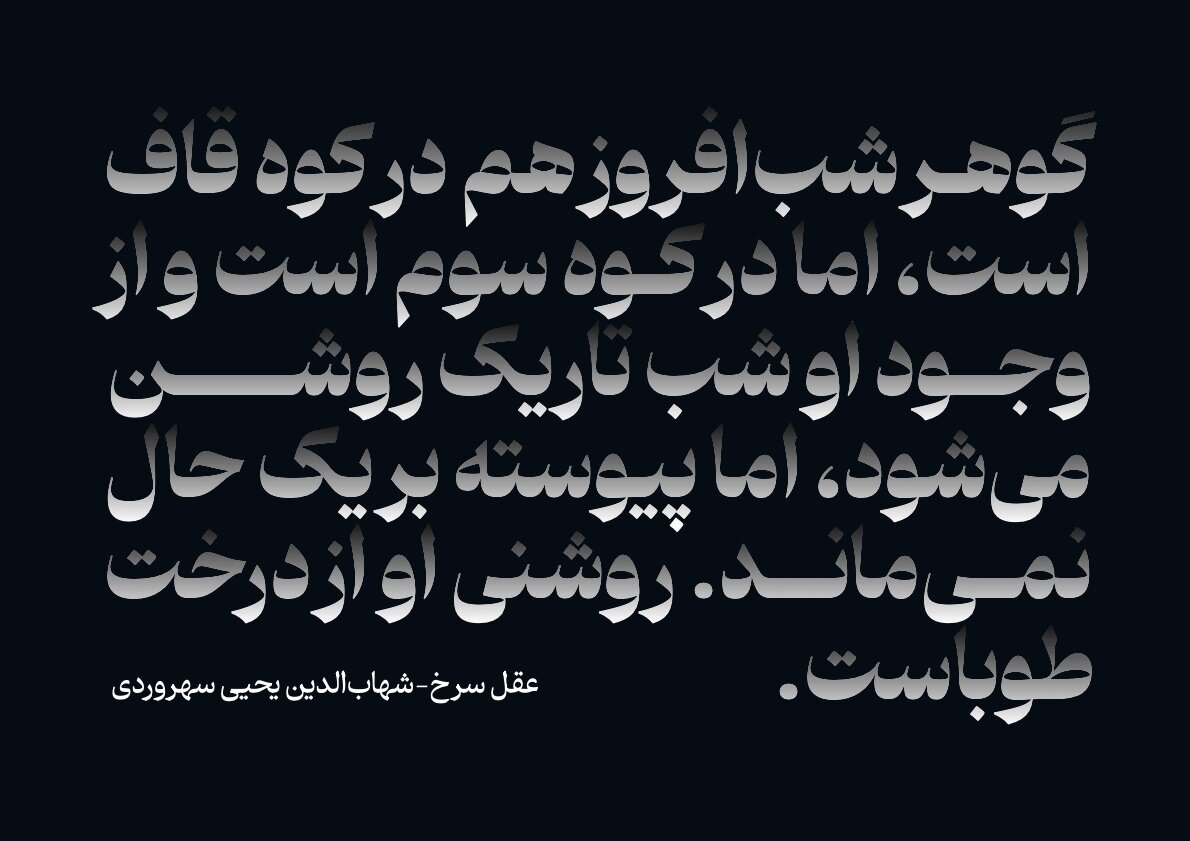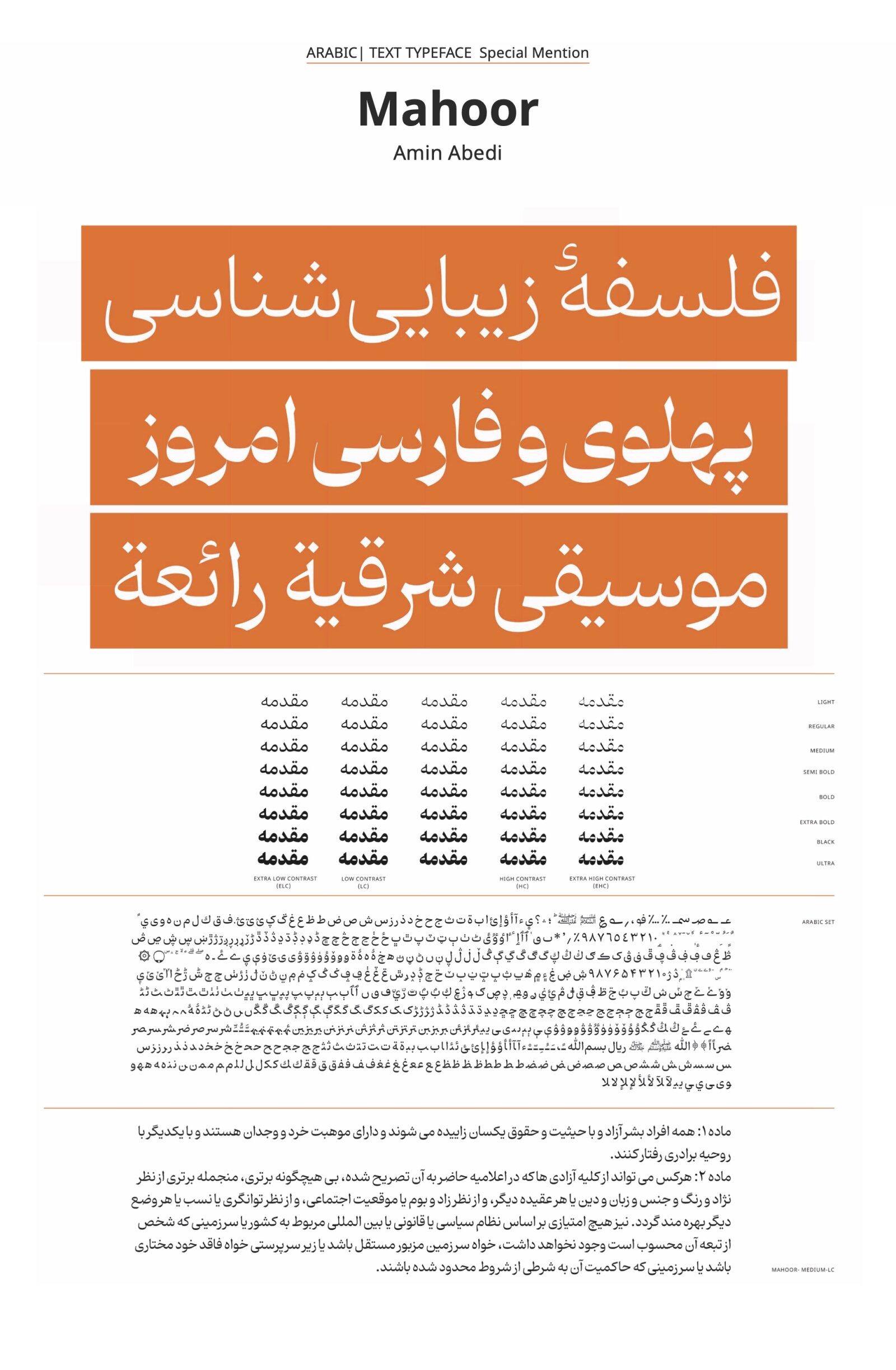
Mahoor
by Amin Abedi
Arabic derived Scripts
This typeface family is well-crafted and provides a significant alternative for the local community it serves. It represents a commendable effort and a valuable addition to Arabic script styles from Southeast Asia. This design is particularly notable as a sub-style of Naskh prevalent in the Indian Subcontinent, addressing a critical need for lesser-served languages such as Sindhi and Urdu.
Mahoor (Māhūr) is a modern text/display simple naskh-based modern Arabic typeface include a considerable range of weight and contrast type design space. Arabic glyphs have smooth curves inspired by Nastaliq.